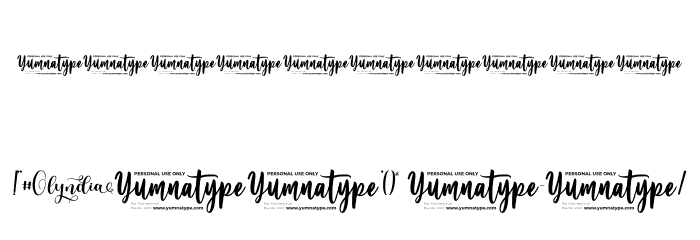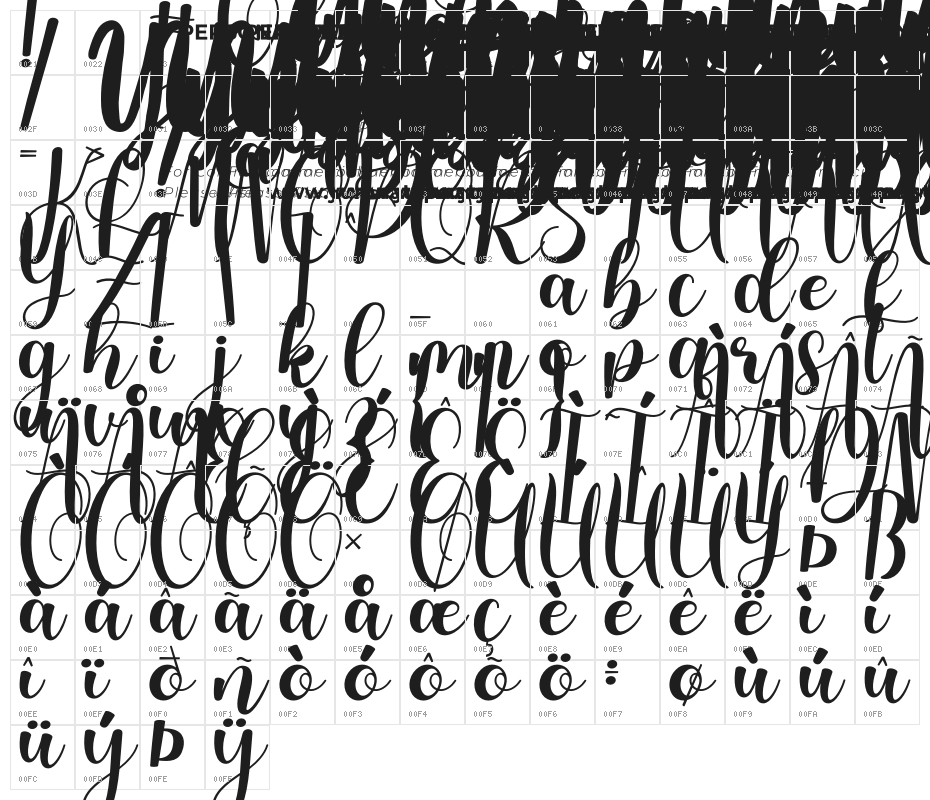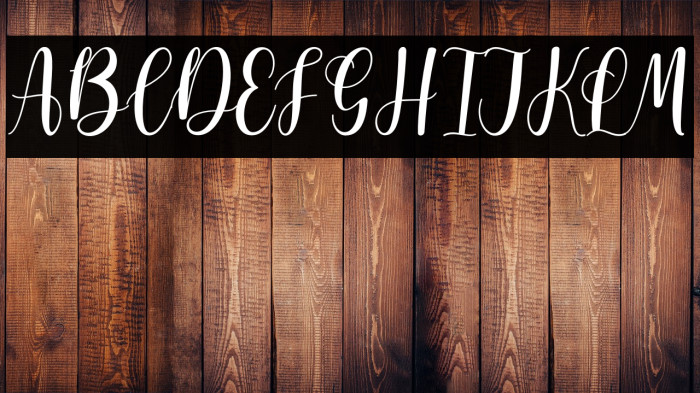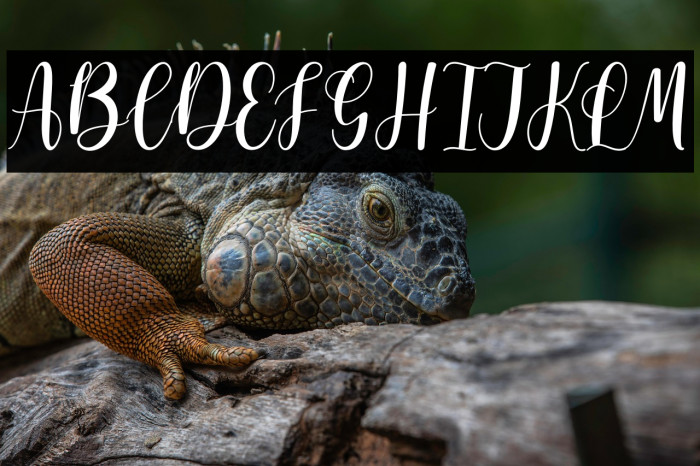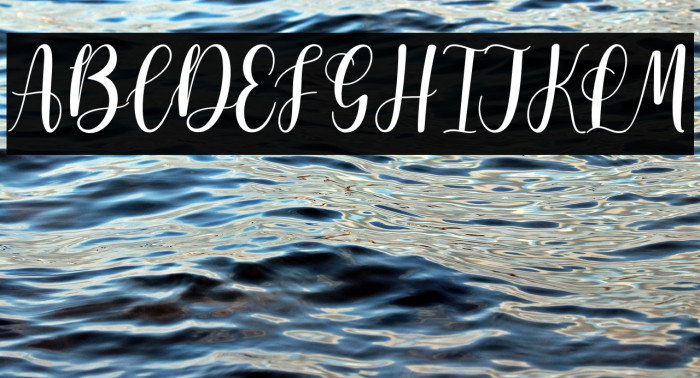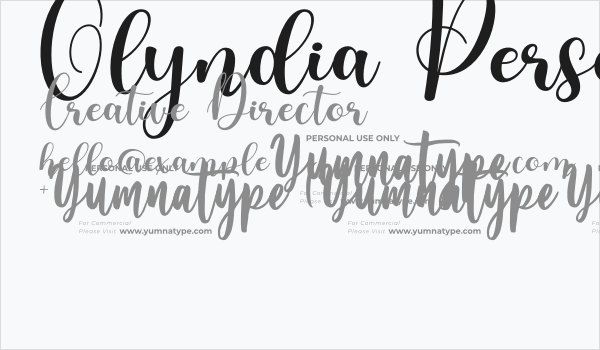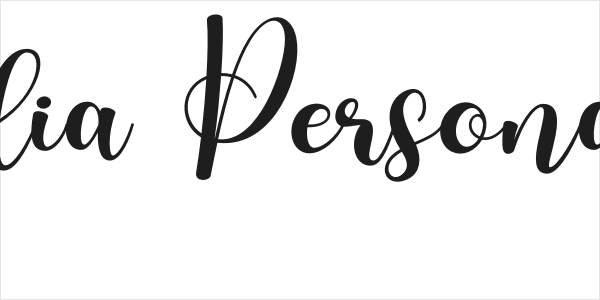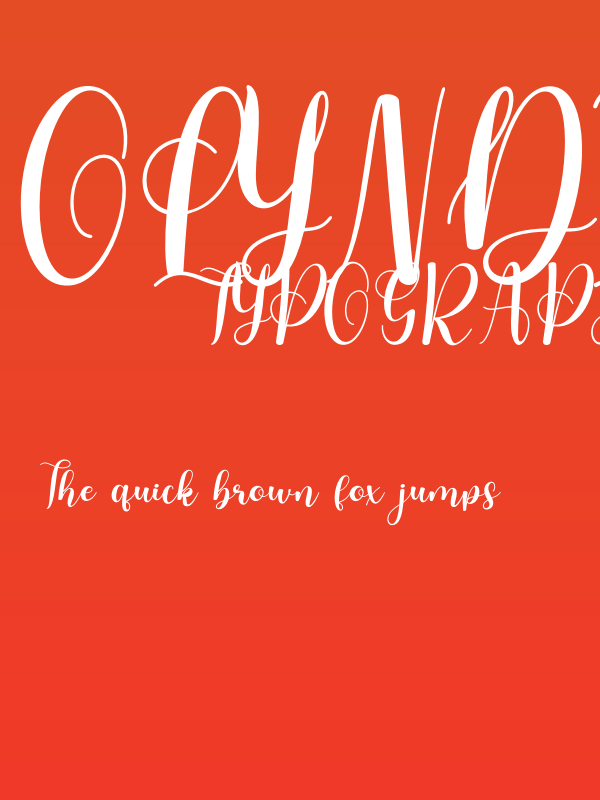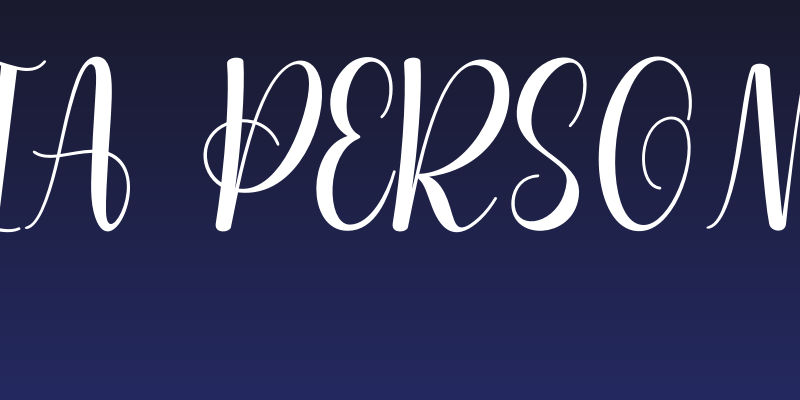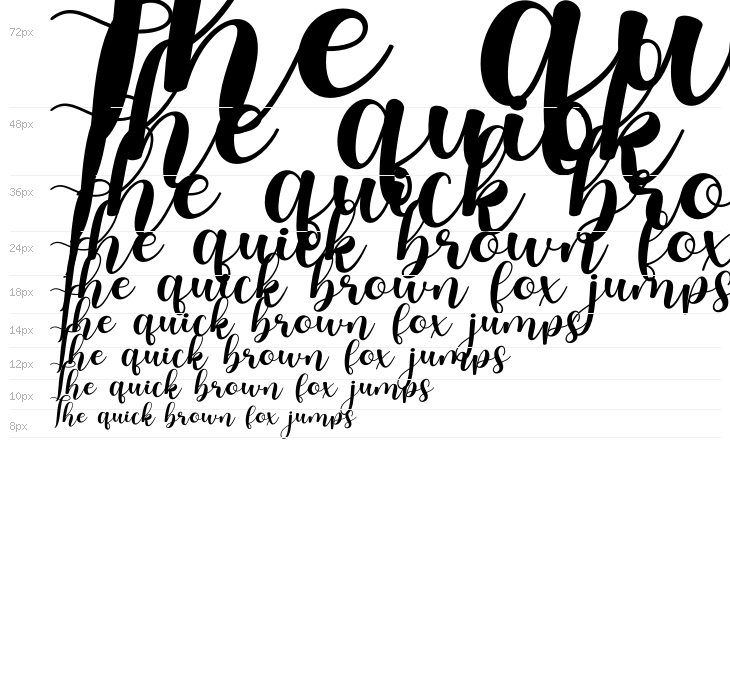
Olyndia Personal Use Font
Olyndia Personal Use Description
This font features a flowing, cursive style with elegant loops and swashes, giving it a sophisticated and artistic appearance. The uppercase letters are tall and graceful, with distinctive flourishes that add a touch of drama. The lowercase letters maintain a consistent flow, enhancing readability while preserving the decorative nature of the script. The numbers and special characters are designed to match the overall aesthetic, ensuring a cohesive look across all text. This font is ideal for projects that require a personal, handwritten touch, such as invitations, greeting cards, and branding materials.